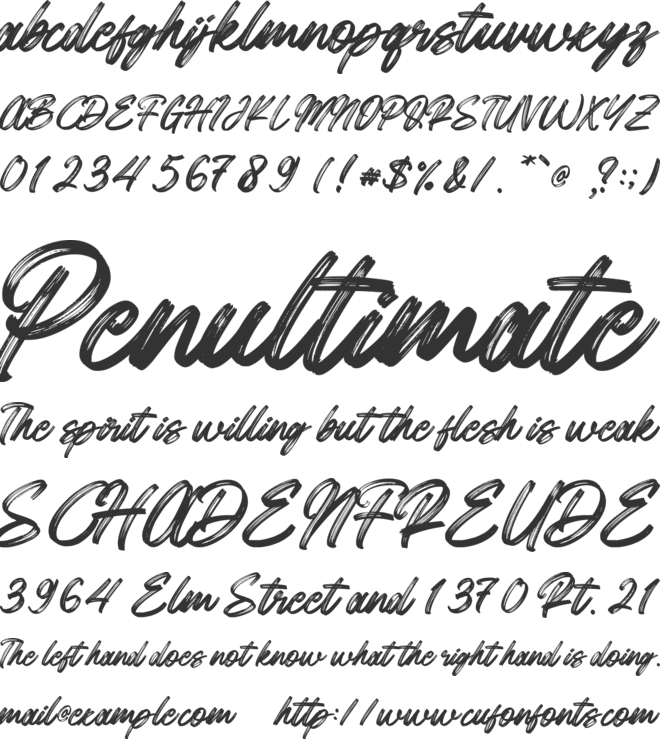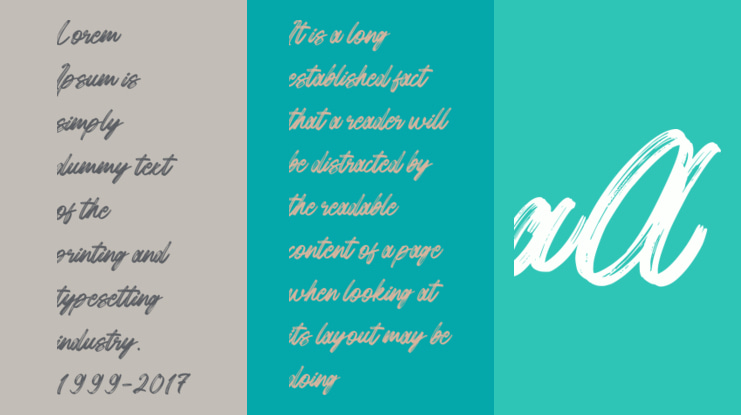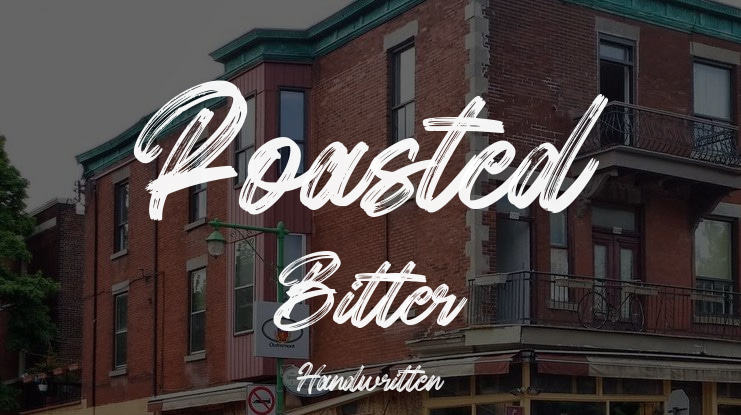
Roasted Bitter Font
Delve into the captivating universe of Roasted Bitter, a meticulously crafted brush type font radiating an aura of elegance and allure. Adorned with fine detail, Roasted Bitter exemplifies unpretentious sophistication, the unique appeal of artisan strokes, making it an exceptional choice for diverse design endeavors. Allow Roasted Bitter to energize your creations, imparting a hint of nature-inspired, chic refinement. The font is brimming with myriad alternatives, ligatures, and swashes, exponentially broadening your creative horizons, setting your imagination alight. Effusing the essence of subtlety, Roasted Bitter consistently amplifies the artistic attraction of your designs, intensifying their visual impact profoundly.